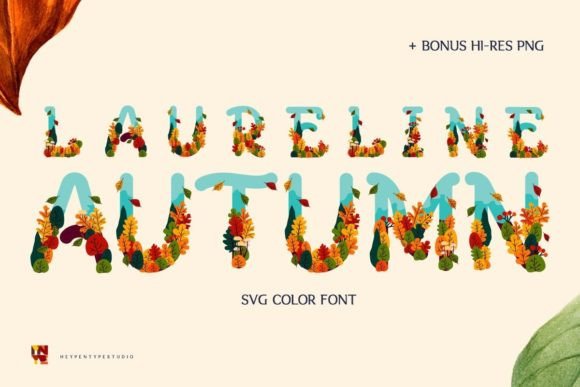
Embark on a whimsical journey with Laureline Autumn Font, a captivating creation by heypentype. Immerse yourself in the enchanting world of colors, where autumn's vibrant hues dance across your designs. This remarkable font family is not just a collection of letters; it's a gateway to creativity, an expression of individuality, and a canvas for your imagination.
With Laureline Autumn Font, transform your projects into captivating masterpieces. Design eye-catching research posters that ignite curiosity and leave a lasting impression. Craft delightful seasonal greetings that warm hearts and spread joy. Create unforgettable invitations that hint at the magic of the season. Let your imagination run wild as you explore the endless possibilities that await you.
Step into a realm of limitless possibilities with Laureline Autumn Font. Its vibrant palette and charming floral patterns will elevate your designs to new heights. Whether you're a seasoned designer or just starting your creative journey, this font family is your perfect companion. Experience the joy of effortless crafting as you watch your ideas come to life with stunning clarity.
Unleash the power of Laureline Autumn Font and unlock your creative potential. Transform ordinary designs into extraordinary works of art. Embrace the beauty of the season and let your imagination soar.